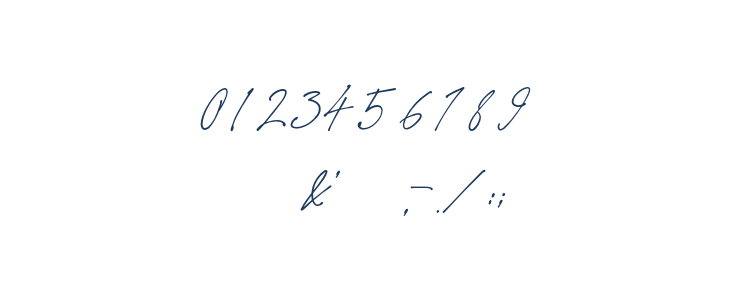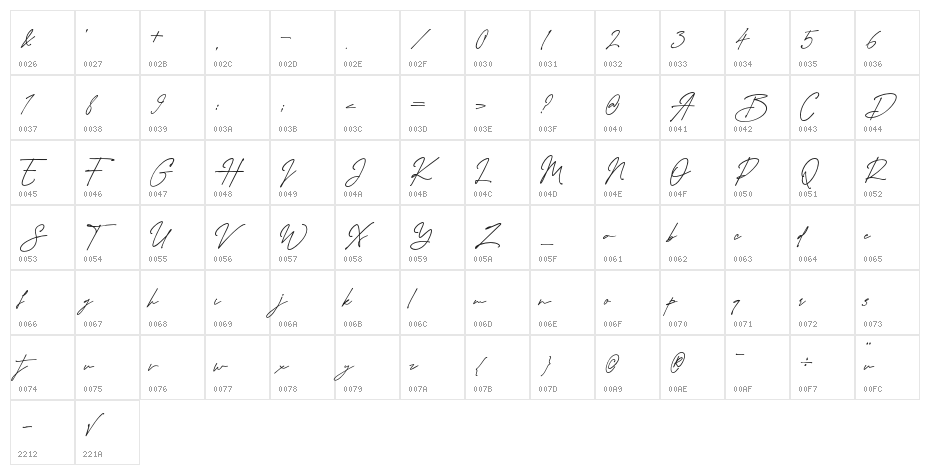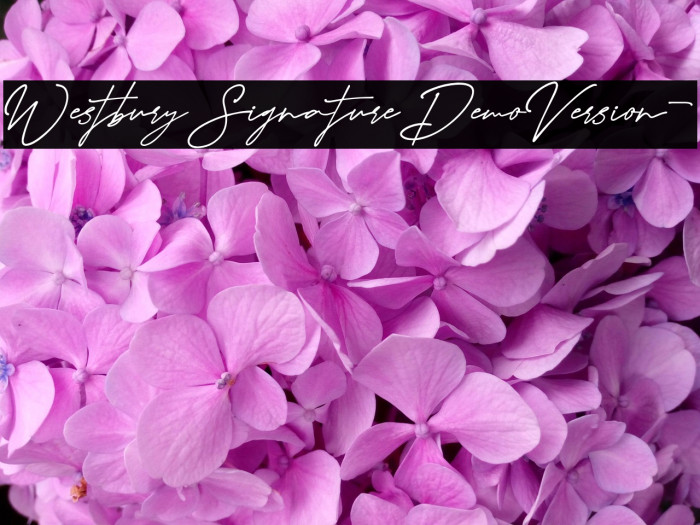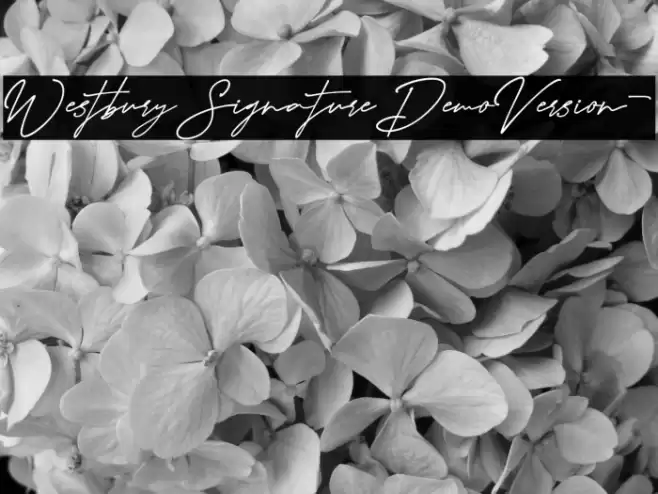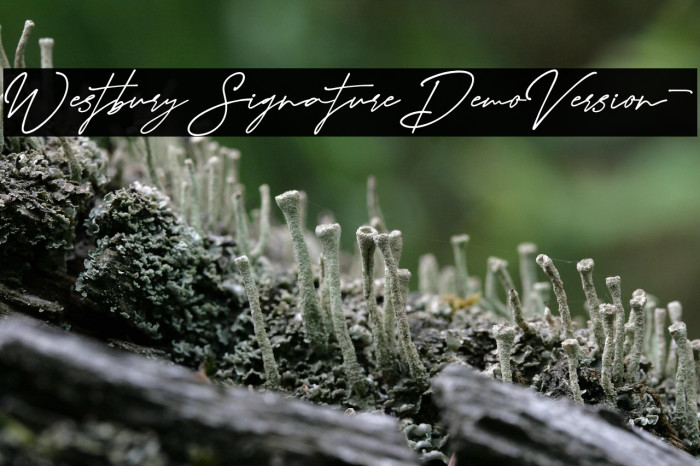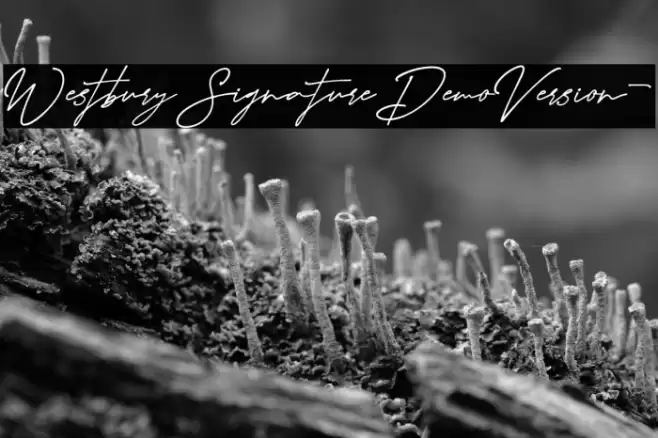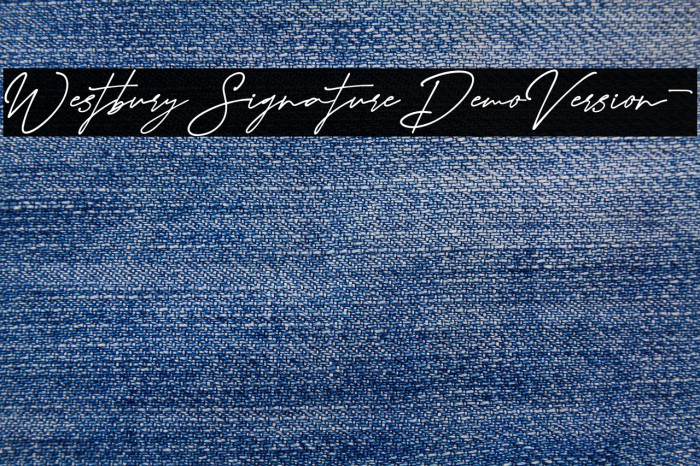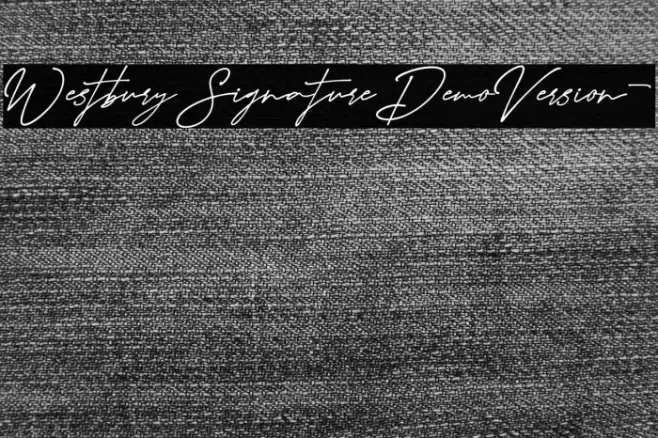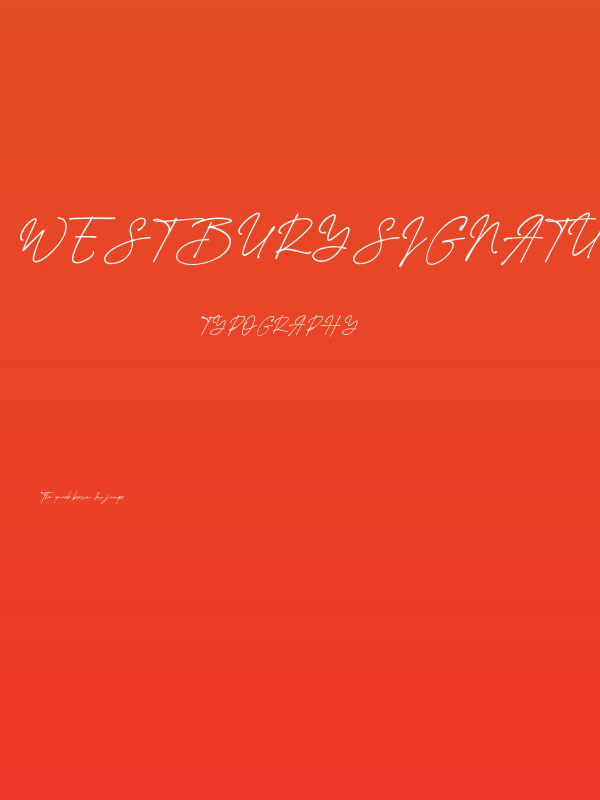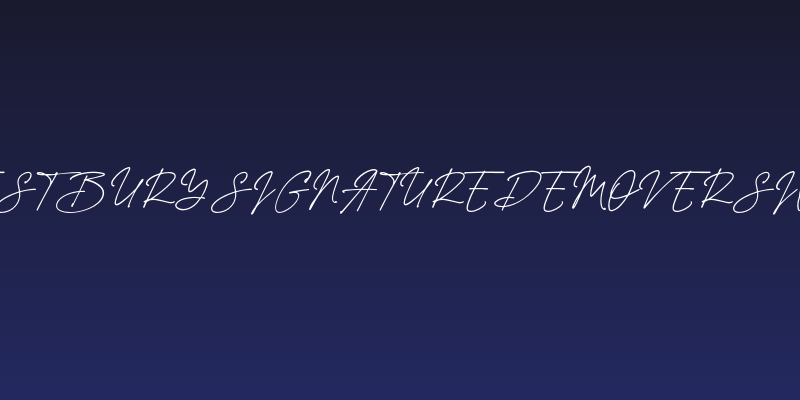
WestburySignatureDemoVersion- Font
WestburySignatureDemoVersion- Description
This font exudes a sophisticated and elegant handwritten style, characterized by its flowing cursive script. The letters are connected with smooth, fluid strokes that mimic the natural motion of handwriting. The uppercase letters are slightly more ornate, with flourishes that add a touch of formality and grace. The lowercase letters maintain a consistent rhythm and balance, contributing to the overall legibility despite the decorative nature. Numbers and special characters are seamlessly integrated, maintaining the same cursive style. This font is ideal for projects that require a personal touch, such as invitations, greeting cards, or branding materials that aim to convey elegance and sophistication.
| Use Case | Invitations, Branding, Stationery |
| Proposed Projects | Ideal for wedding invitations, personal branding, elegant stationery, and greeting cards. |